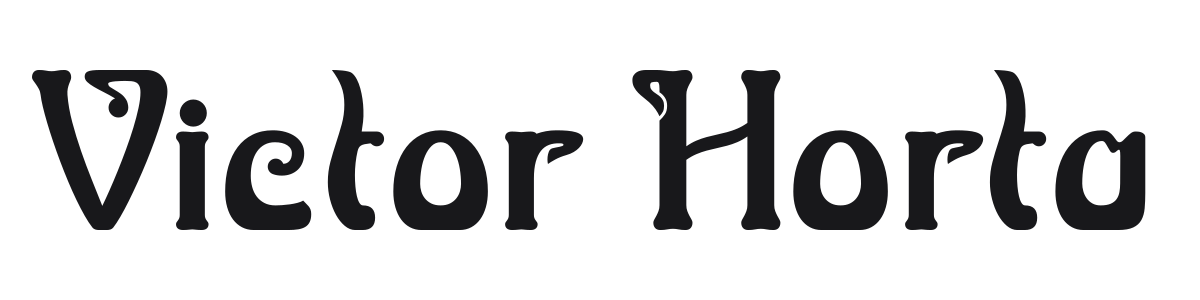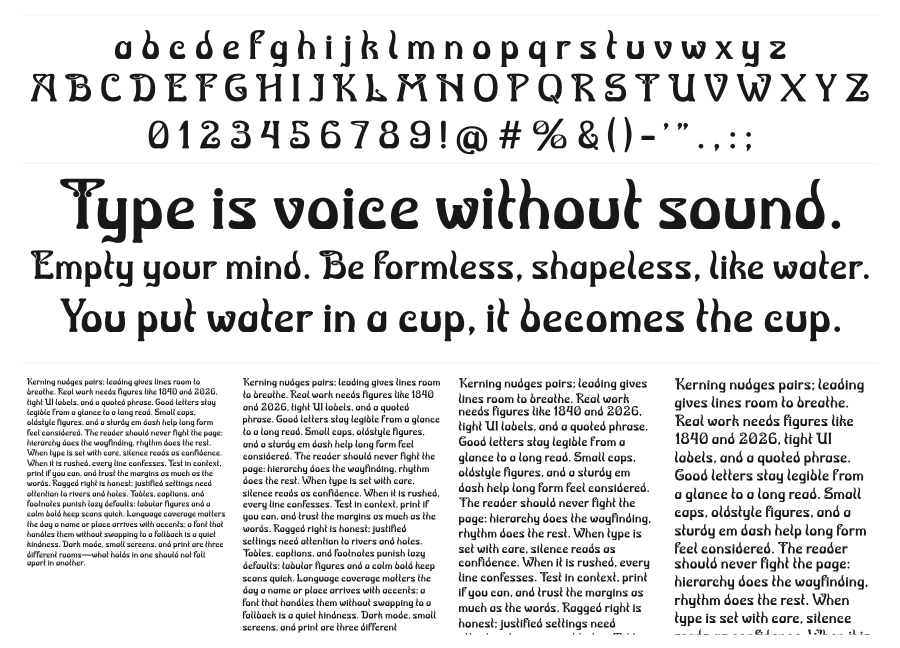
Victor Horta
by Yves Michel
Victor Horta is an Art Nouveau display font paying tribute to the celebrated Belgian architect of the same name, modeled in the spirit of Otto Weisert's 1904 Arnold Böcklin typeface. Every stroke curls and tapers with the sinuous energy of fin-de-siècle ornament, from whiplash terminals to teardrop finials that evoke wrought iron and botanical motifs. Bold and atmospheric, it carries the unmistakable character of the belle époque.